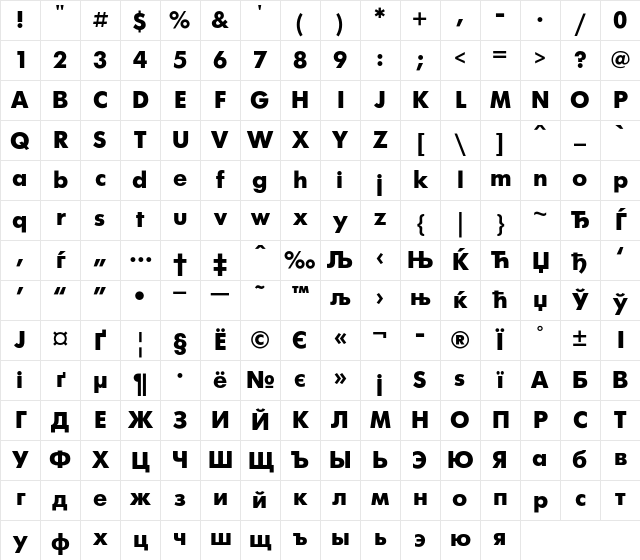
FuturisXC Regular
Design Context for FuturisXC
FuturisXC has a distinctly futuristic character, with geometric precision and clean angles that feel at home in technology, gaming, and sci-fi contexts.